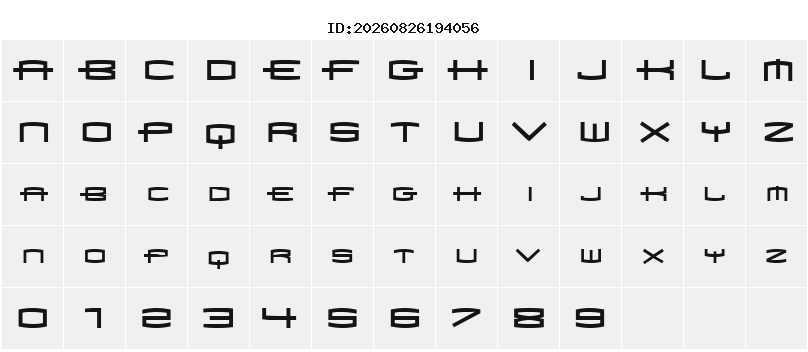
X979.ttf is a modern, elegant sans-serif font designed for ultimate readability and visual harmony. Perfect for branding, headlines, web design, and print materials.